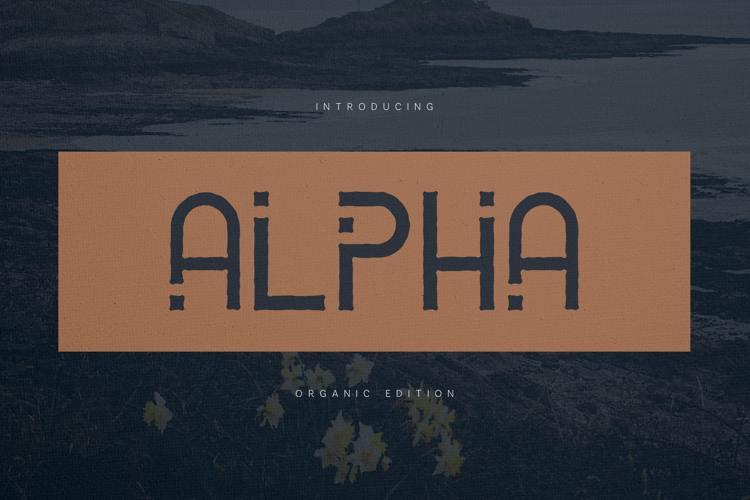
Alpha Organic Distressed Display Font
Alpha is a bold organic display typeface designed with a unique distressed character structure. The font features subtle breaks, rough edges, and irregular cuts that create an authentic handcrafted aesthetic while still maintaining excellent readability.
Its distinctive texture gives typography a natural and slightly imperfect personality, making it ideal for designers who want to create expressive and memorable visual identities. The broken letterforms add character without overwhelming the design, allowing the typeface to work beautifully across both branding and editorial compositions.
Alpha is especially suitable for modern branding, poster design, album covers, editorial layouts, outdoor brands, fashion projects, packaging, and bold logo concepts. The font performs best in large display sizes where its organic imperfections and character details become visually striking.
The typeface includes uppercase and lowercase characters, numerals, punctuation, and extended multilingual support so it can be used across a wide range of international projects.
Whether you’re designing branding for a lifestyle brand, creating a bold editorial layout, or crafting unique typographic posters, Alpha adds a distinctive organic voice to your typography.